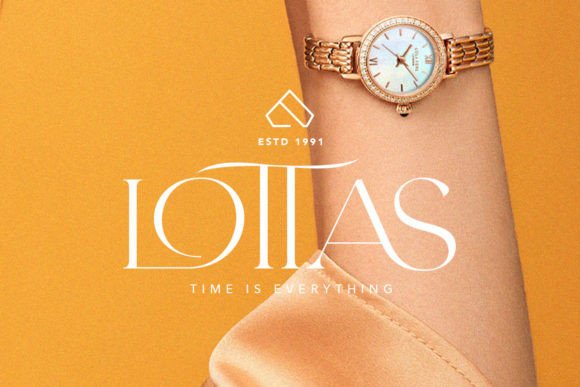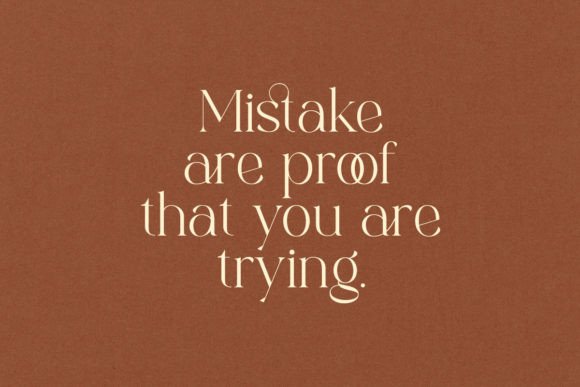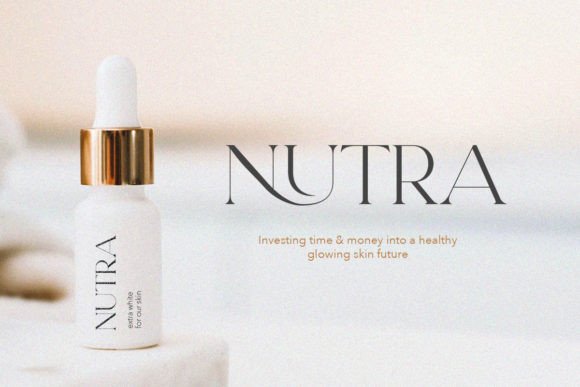
Introduction to Royal Honors Font
Royal Honors is a modern and elegant serif with many ligatures that will make your project more stunning and eye-catching.
You can use this font for any project, such as branding, logo, magazine, quotes, etc You can get beautiful design just from elegant ligatures in lowercase and uppercase.
Royal Honors Font offers exceptional quality and versatility, making it a valuable addition to your design toolkit. Whether you’re creating for personal projects or commercial use, Royal Honors Font delivers professional results.